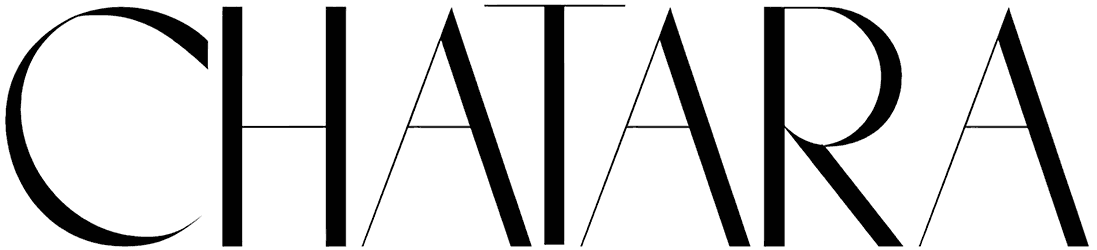
Chatara Font
Chatara, like other luxury sans serif fonts, can assist you in creating visually appealing urban and user interfaces, flyers, and other similar projects. This tall, modern font will give your design a professional edge a…
Designed bySaxofont
Chatara, like other luxury sans serif fonts, can assist you in creating visually appealing urban and user interfaces, flyers, and other similar projects. This tall, modern font will give your design a professional edge and make it stand out from the crowd, but it does not contain lowercase letters.